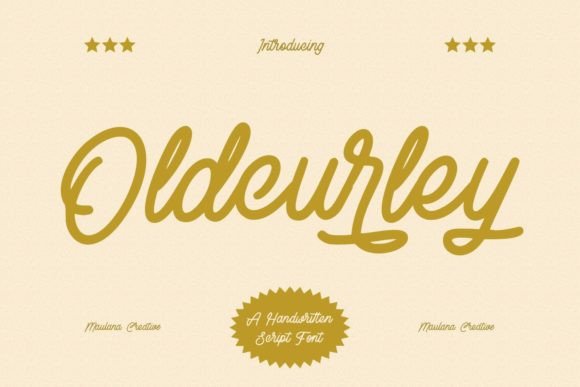
Step into a world of nostalgia and charm, where the Oldcurley Font reigns supreme. This remarkable script font, hailing from the creative minds at Maulana Creative, captures the essence of a bygone era, infusing your designs with a touch of vintage magic.
With its playful curves and charming imperfections, Oldcurley transports you to a time when handwritten letters carried stories and emotions. Its carefully crafted characters evoke a sense of authenticity and warmth, making it the perfect choice for those seeking a font that speaks to the heart.
Imagine your designs adorned with the elegant swirls and graceful strokes of Oldcurley. Whether you're creating a modern CV, crafting a heartfelt invitation, or designing a vintage-inspired logo, this font will elevate your work to new heights of sophistication.
Embark on a journey through time as you explore the endless possibilities of Oldcurley. Its versatility shines through in both digital and print applications, allowing you to effortlessly infuse your creations with a touch of timeless charm.
Elevate your designs with a font that tells a story, a font that captivates and enchants. Oldcurley is not just a font; it's an experience that will transport you and your audience to a realm of beauty and nostalgia.